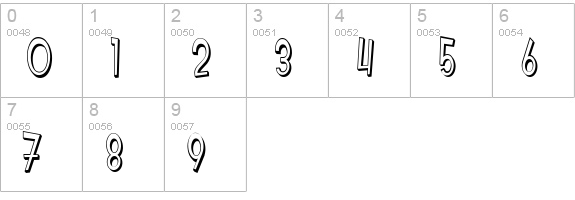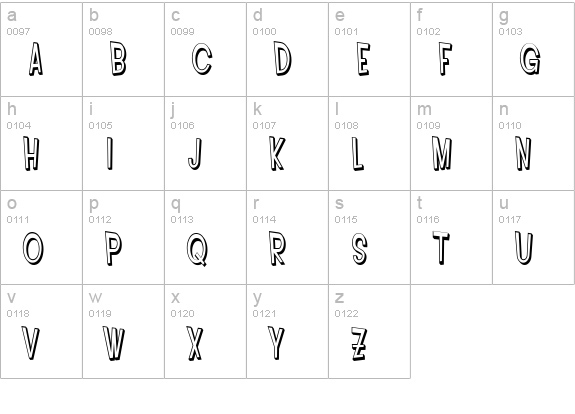
SF Intoxicated Blues Shaded Font Details
SF Intoxicated Blues Shaded font is a stunning typeface that exudes a sense of moody elegance and captivating allure. With its unique blend of edginess and sophistication, this font is perfect for adding a touch of intrigue to any design project. The letterforms of SF Intoxicated Blues Shaded font are intricately crafted, showcasing a harmonious balance between boldness and delicacy. Each character is meticulously designed with shadowed contours, giving it a three-dimensional appearance that adds depth and dimension to your text. This font is ideal for creating eye-catching headlines, stylish logos, and captivating titles. Its versatility allows it to seamlessly adapt to various design contexts, whether it be for print or digital media. From book covers to posters, websites to packaging, SF Intoxicated Blues Shaded font adds a distinctive touch that instantly captivates the viewer's attention. One of the most appealing aspects of SF Intoxicated Blues Shaded font is that it is freely available to download at FontsMarket.com. This means that you can easily access and incorporate this stunning typeface into your design projects without any cost. It's a fantastic opportunity to enhance your creative endeavors without breaking the bank. So, if you're searching for a font that effortlessly combines sophistication and edginess, SF Intoxicated Blues Shaded font is the perfect choice. Its captivating and alluring nature, combined with its availability as a free download, makes it an invaluable asset for any designer or creative professional. Experience the allure of SF Intoxicated Blues Shaded font and elevate your designs to new heights of visual appeal.